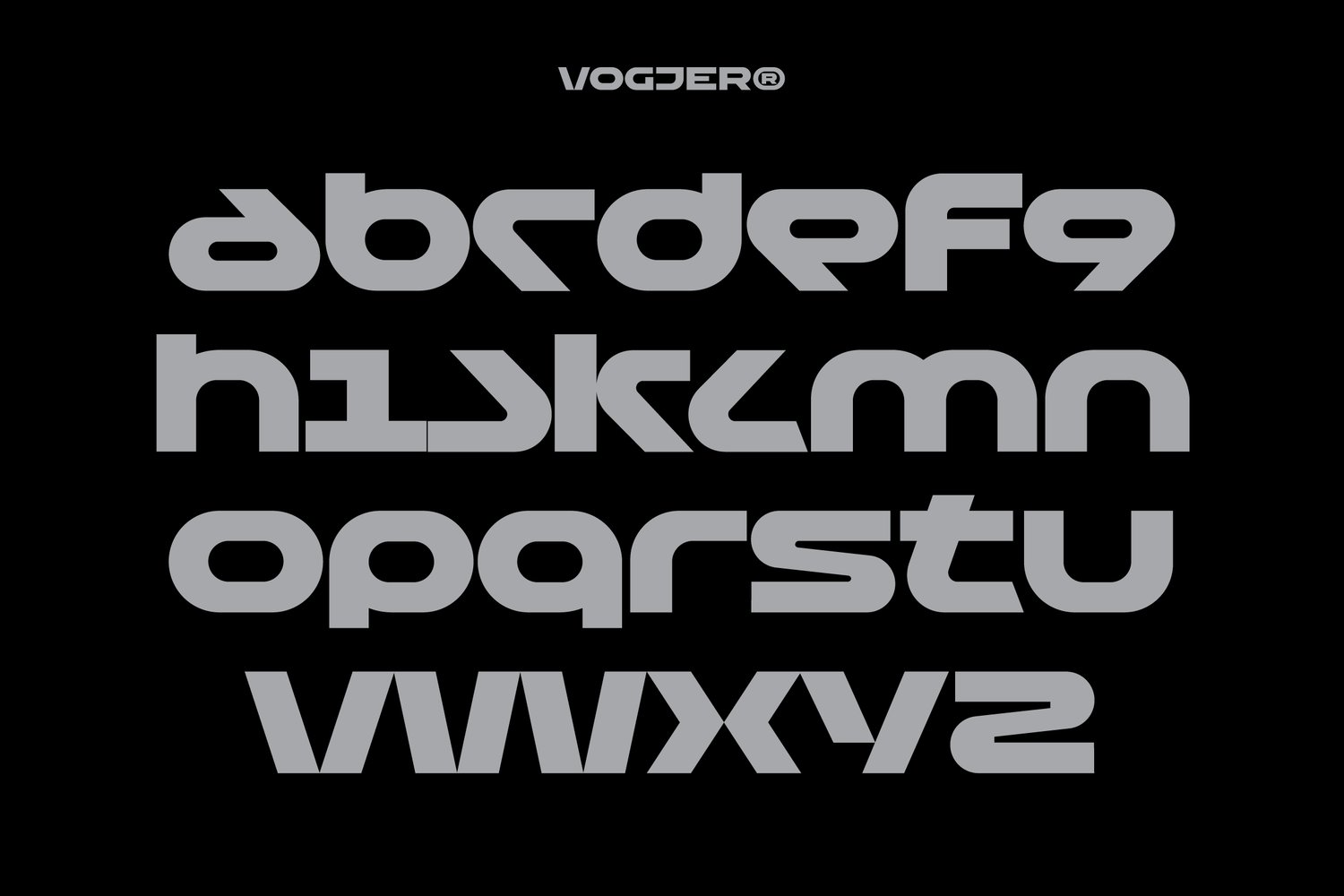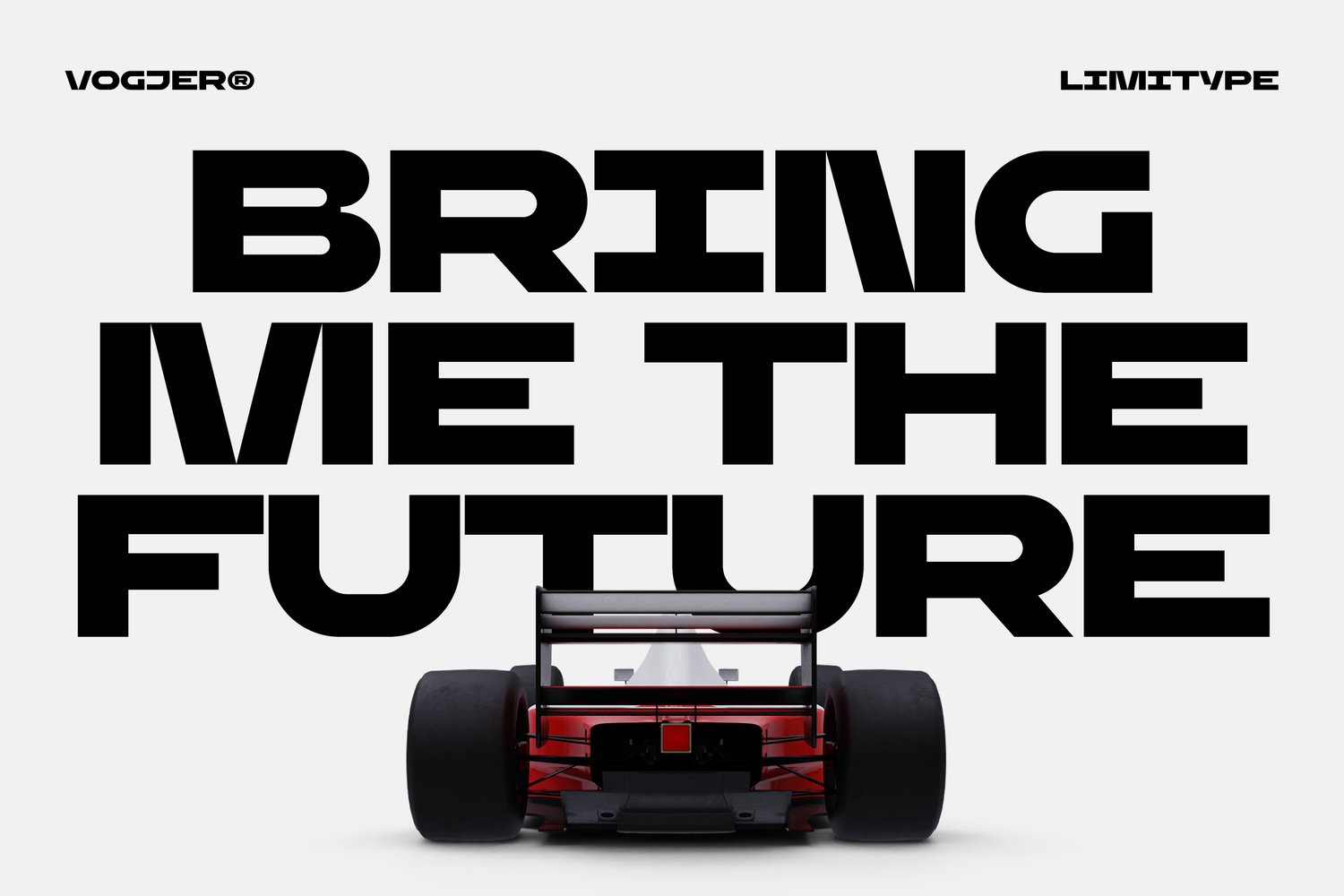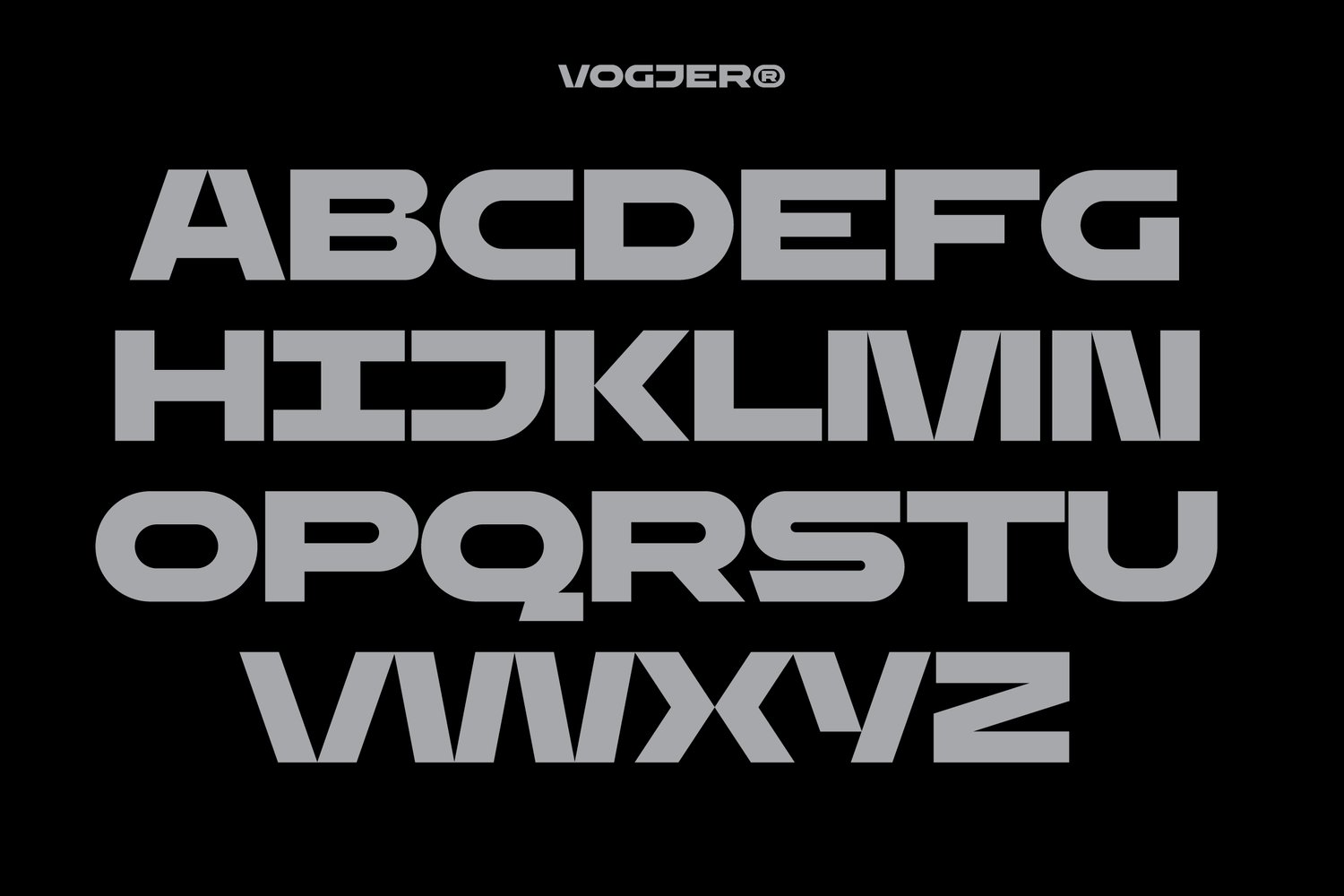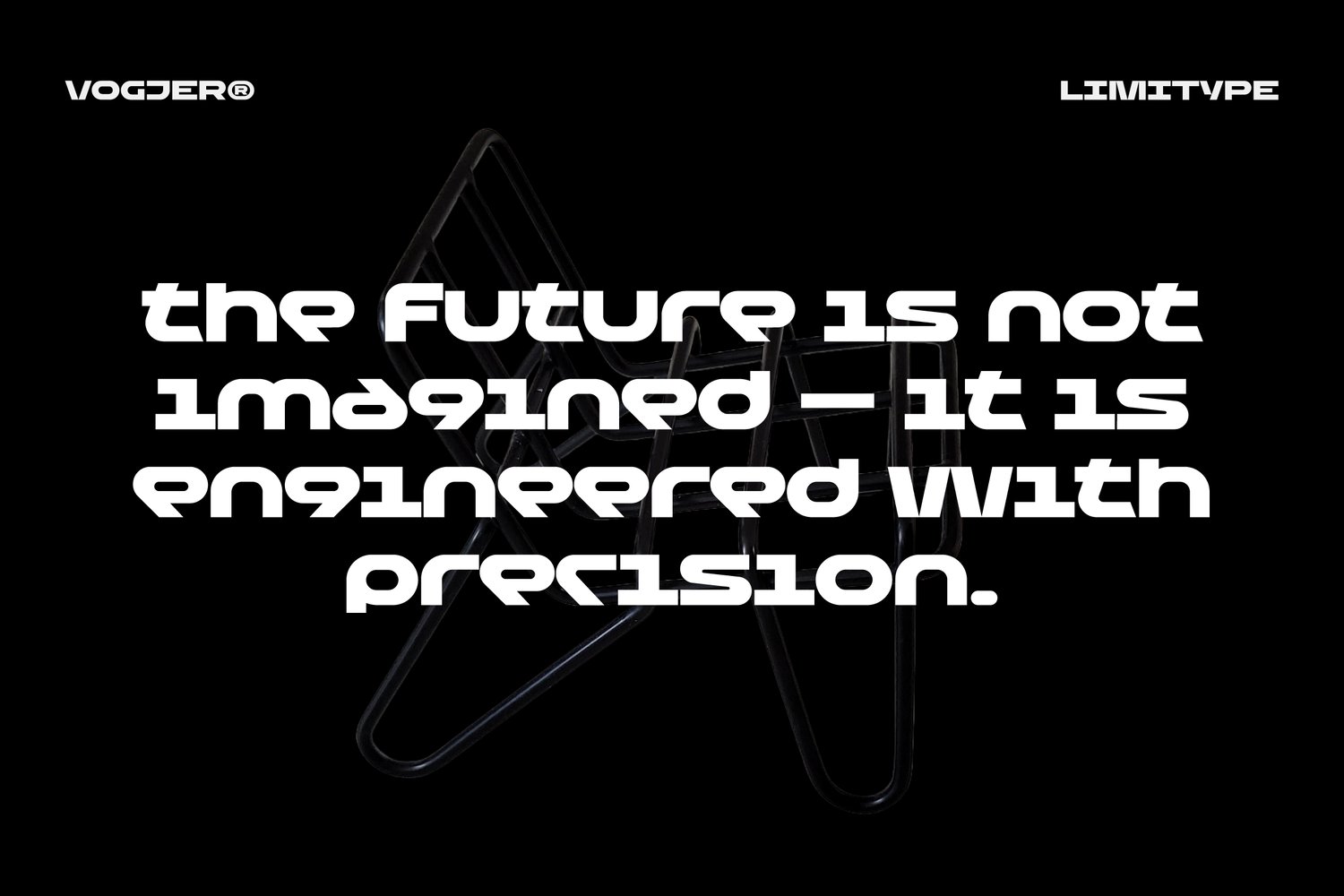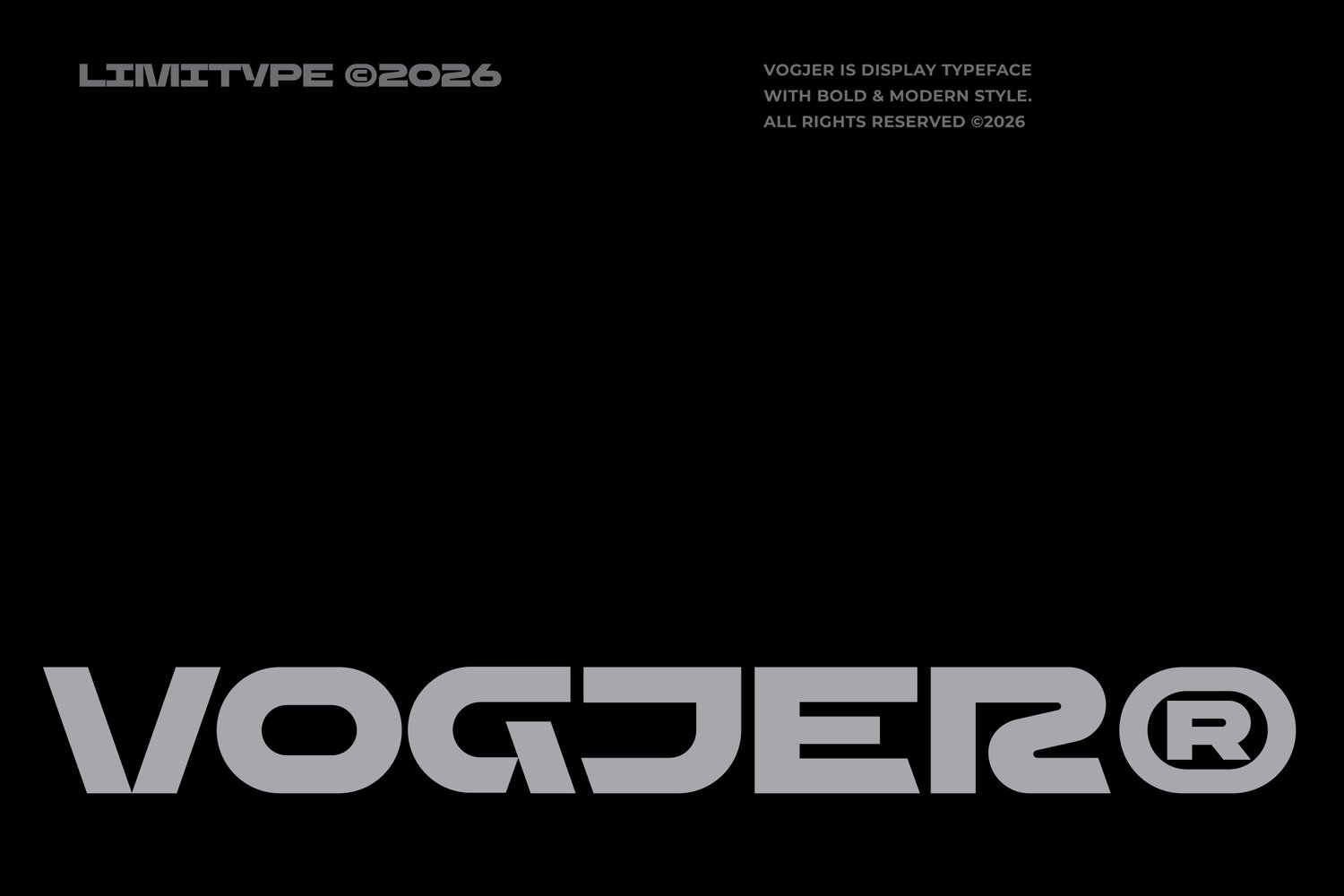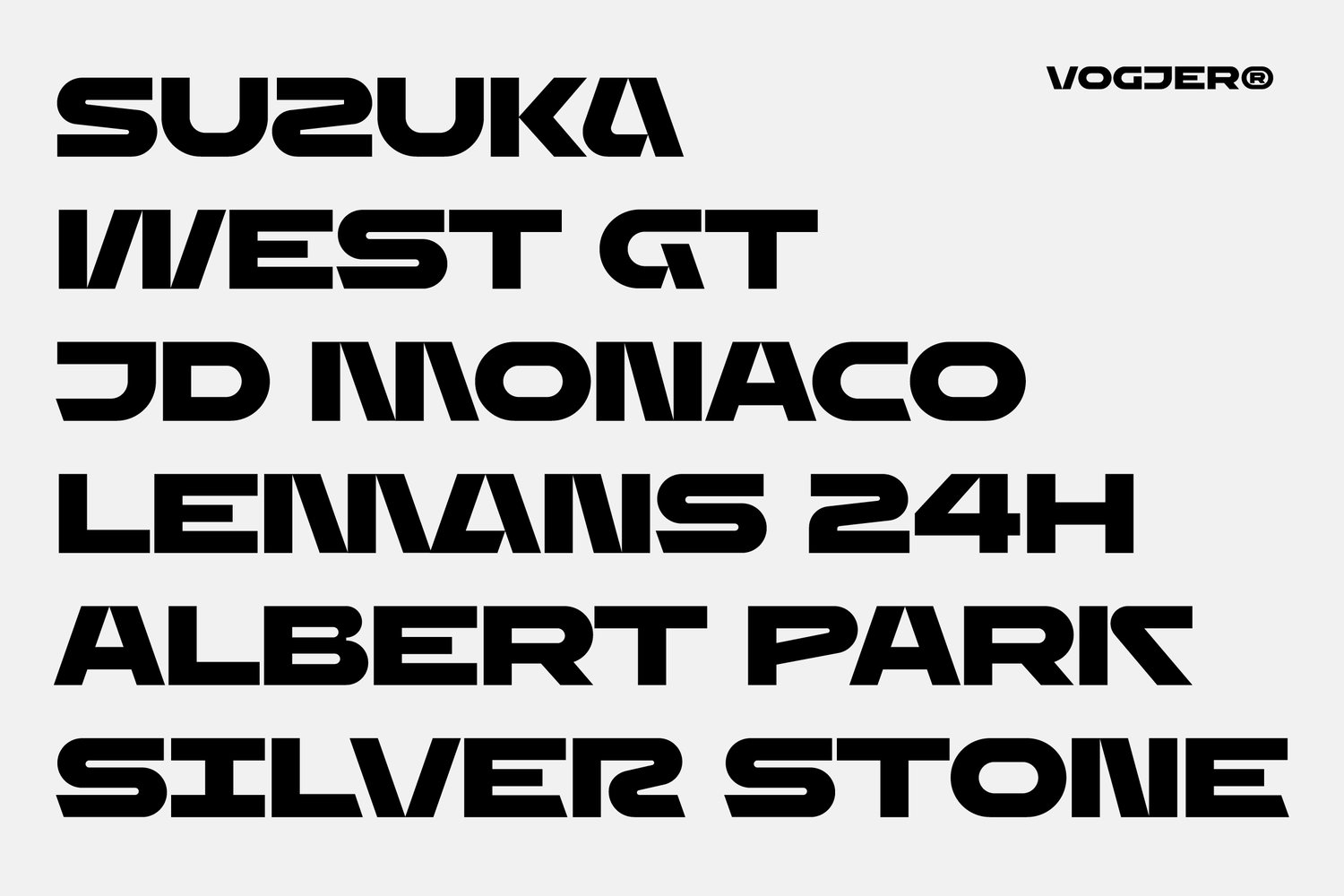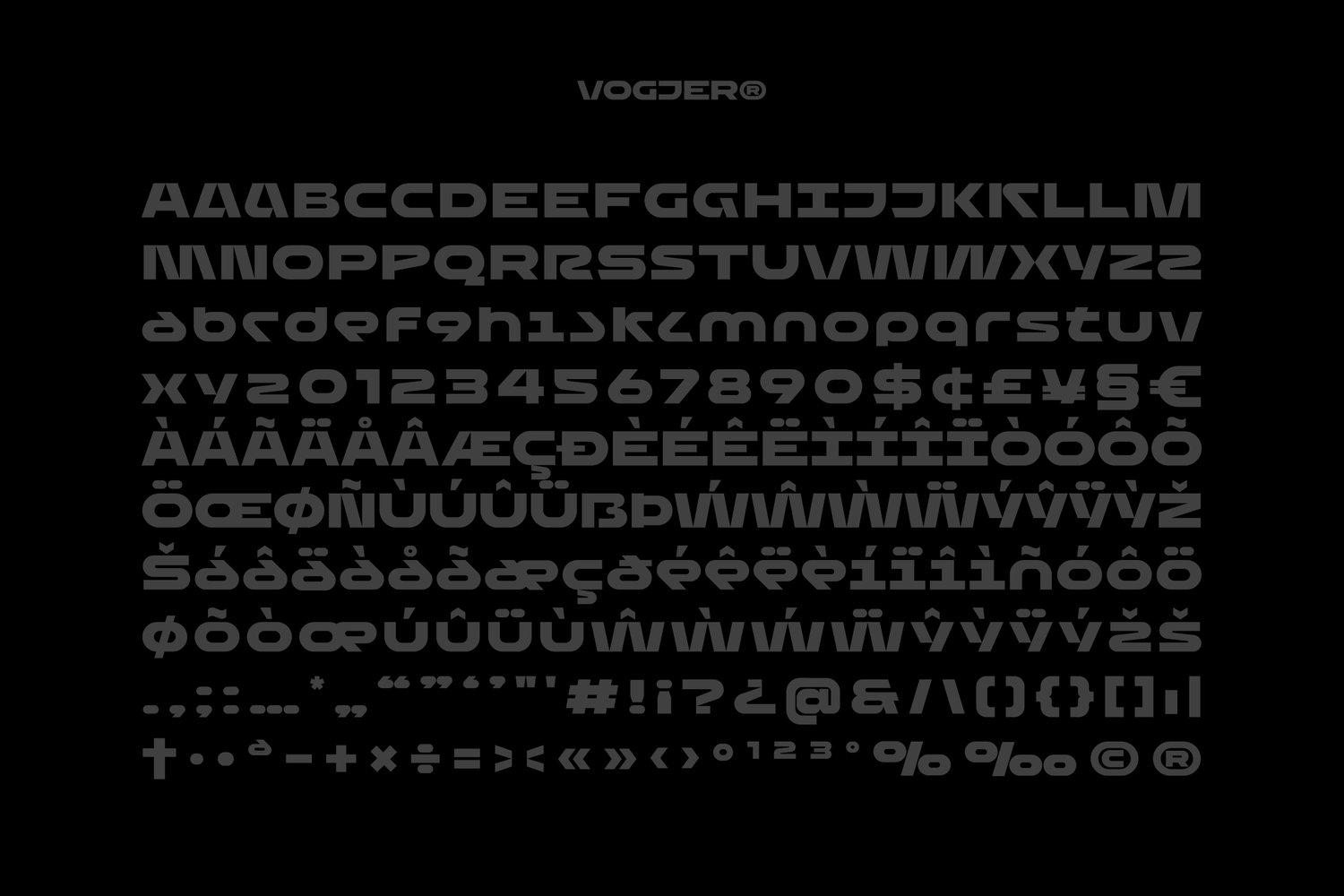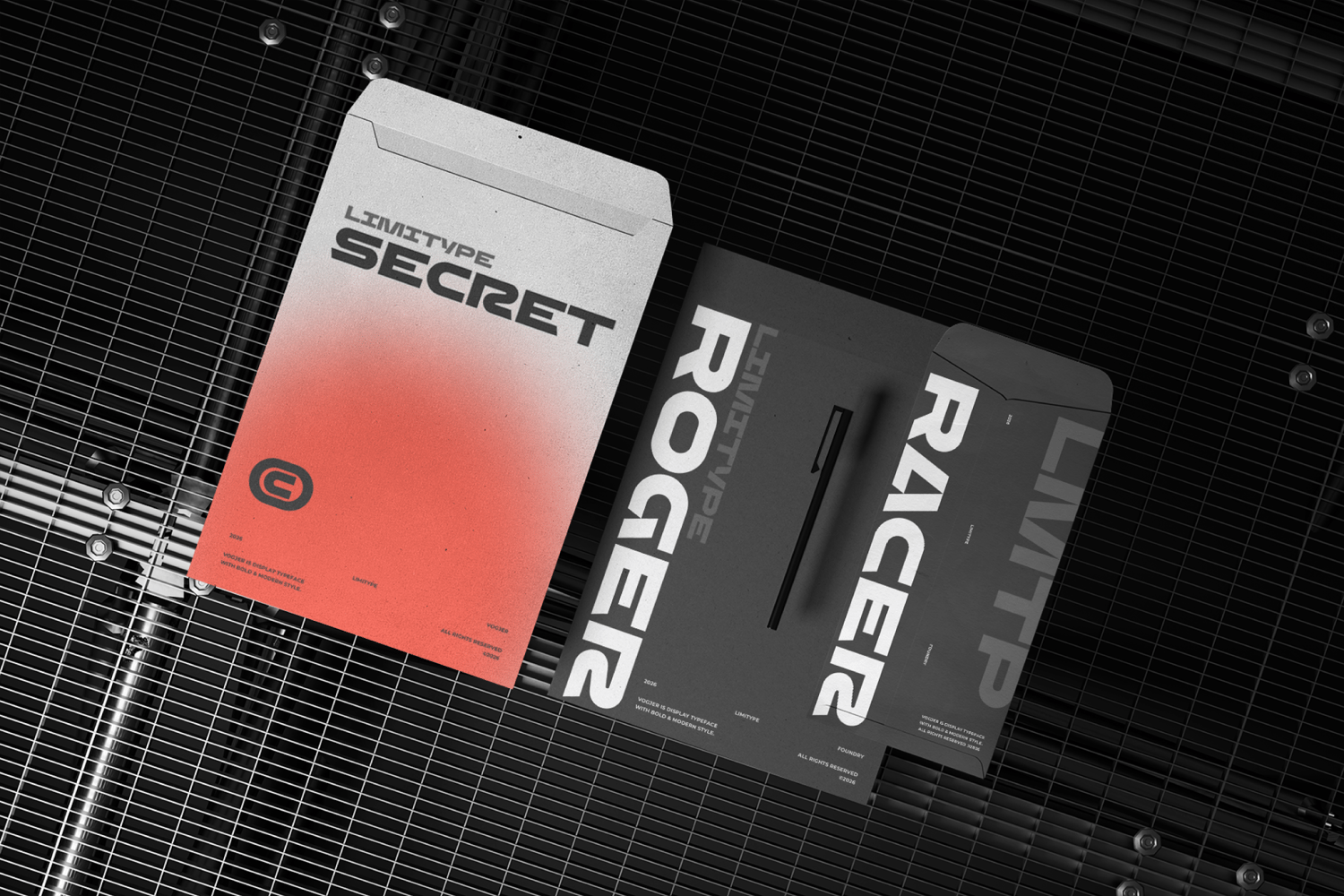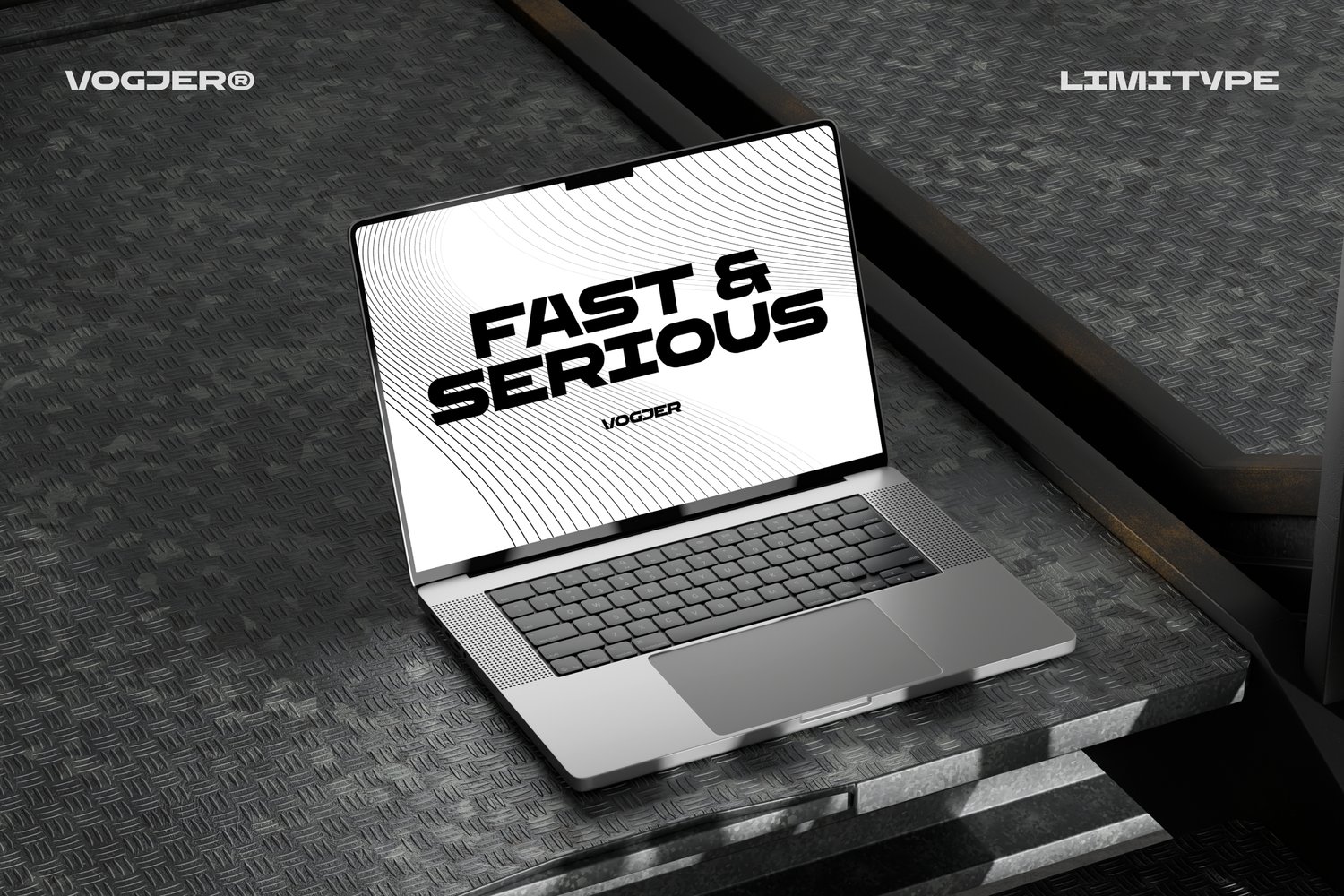
Vogjer - Bold Futuristic Font
Vogjer is a bold futuristic typeface designed with a strong, dynamic structure that delivers a powerful visual impact. Its sharp forms and modern construction make it perfect for forward thinking designs such as technology branding, gaming visuals, posters, logotypes, and digital interfaces. Equipped with alternative glyphs, Vogjer offers flexible letter variations that help designers create unique and futuristic compositions while maintaining a clean and confident.